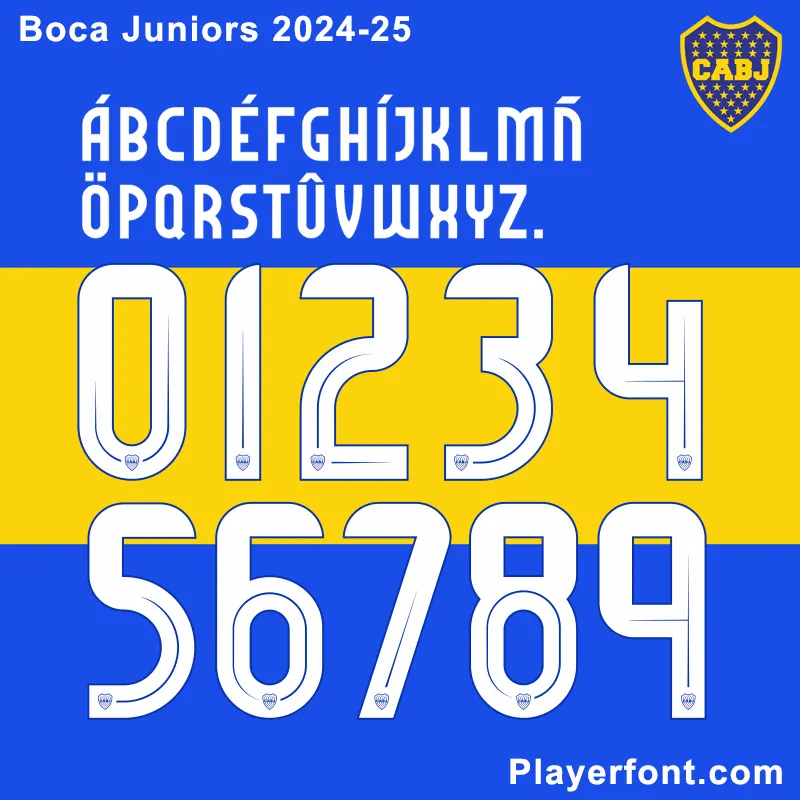
The Boca Juniors vector font is based on the official name set, with the Boca Juniors club logo at the bottom of the number. Can be used custom Boca Juniors 24-25 jersey name set.